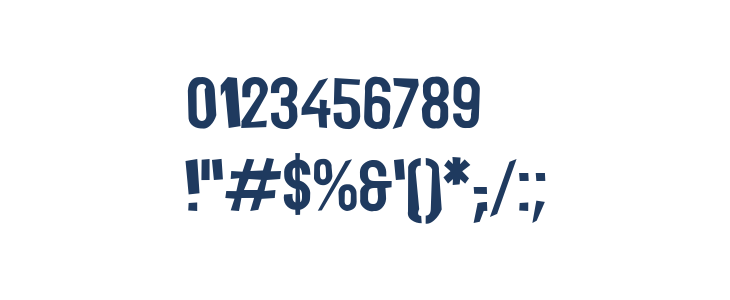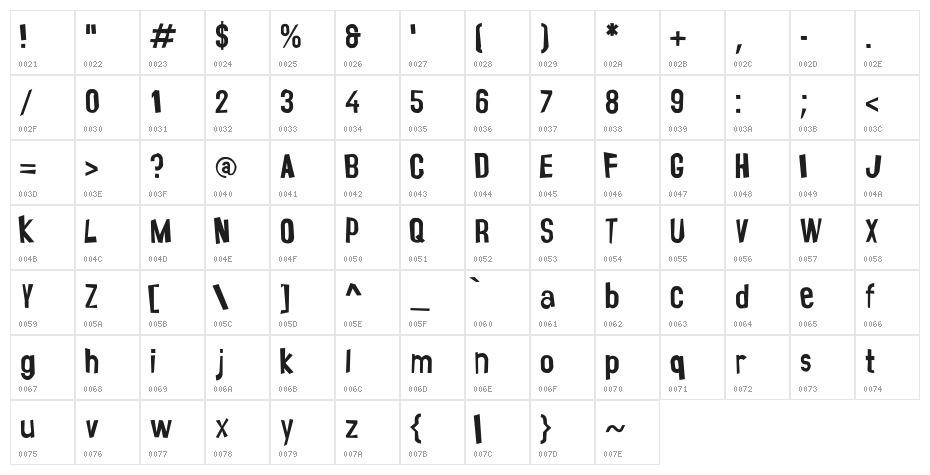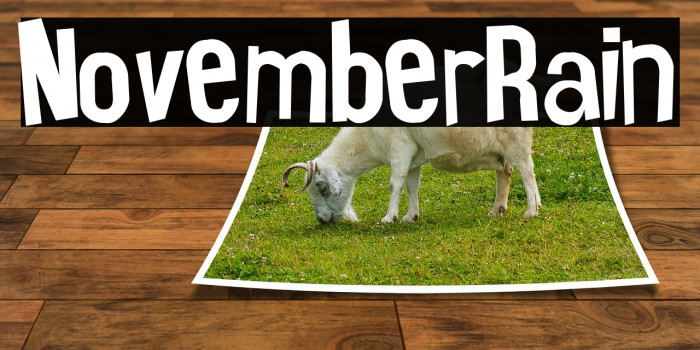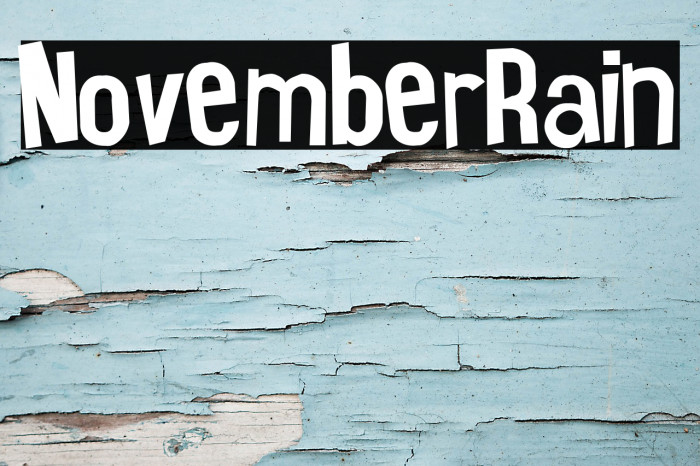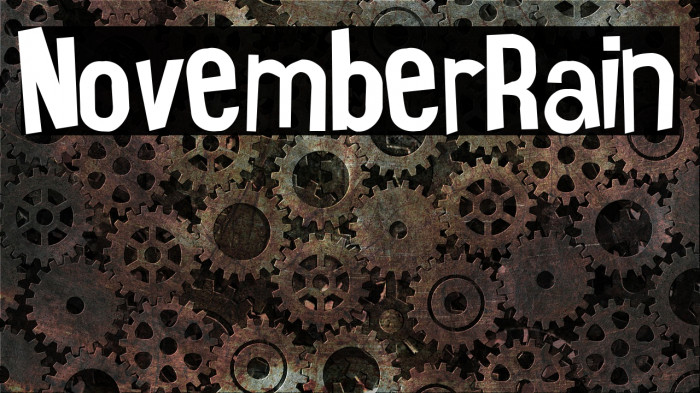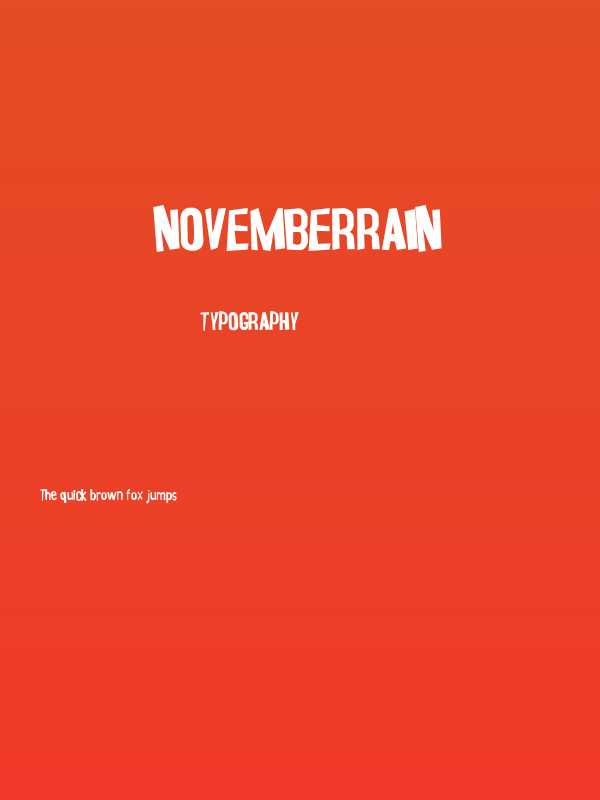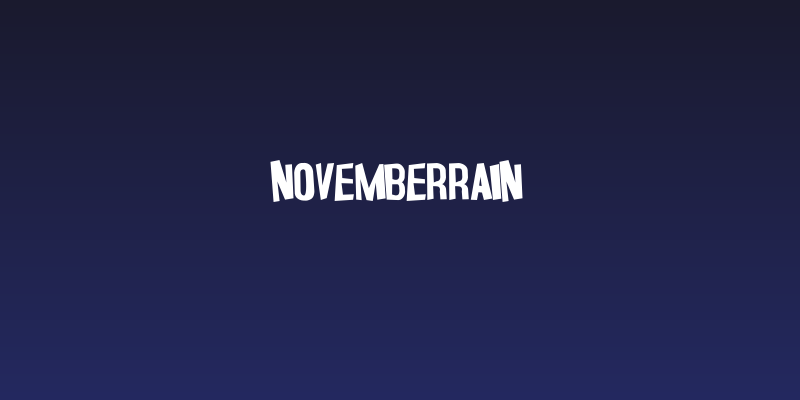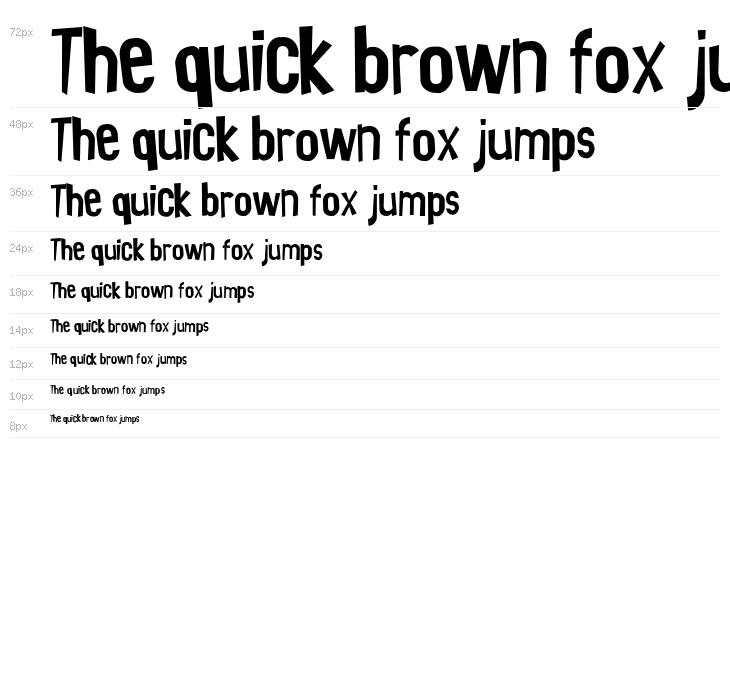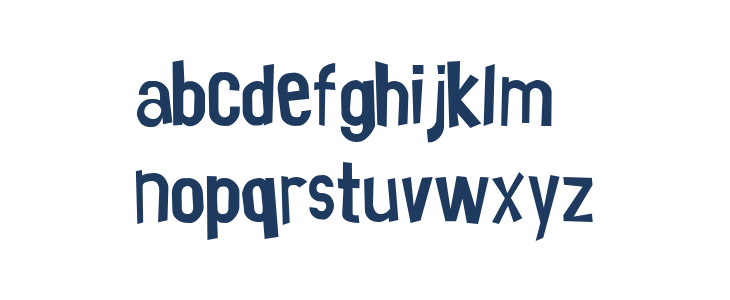
NovemberRain Font
NovemberRain Description
This font features a bold and playful style with a slightly irregular and hand-drawn appearance. The uppercase letters are tall and narrow, with varying stroke widths that create a dynamic and energetic look. The lowercase letters maintain the same playful essence, with some characters having unique, quirky shapes that add to the font's charm. The numbers are consistent with the overall style, offering a cohesive look across all characters. Special characters are included, maintaining the same whimsical and bold characteristics. This font is ideal for projects that require a fun and eye-catching design.
| Use Case | Headlines, Posters, Creative Designs |
| Proposed Projects | Ideal for children's books, playful branding, posters, and creative design projects. |